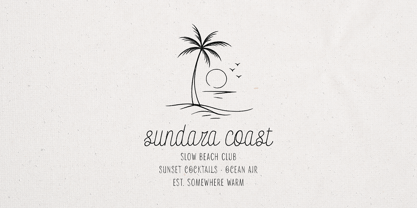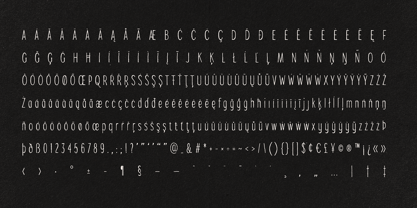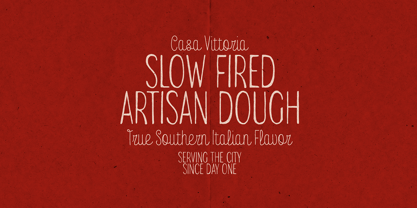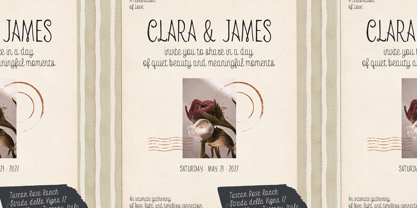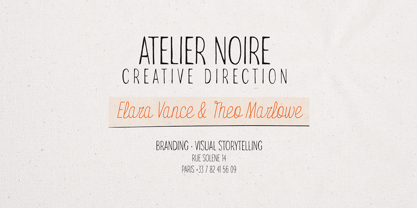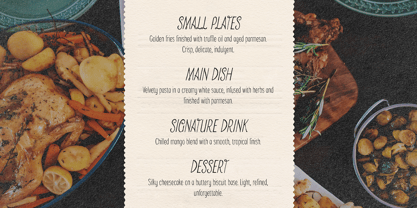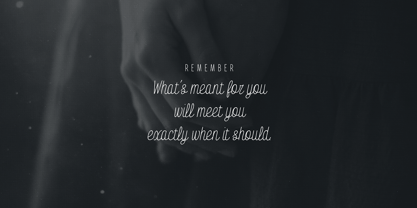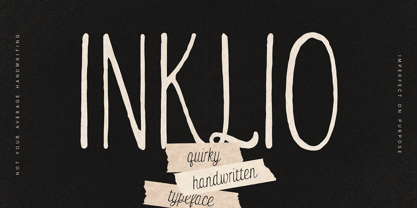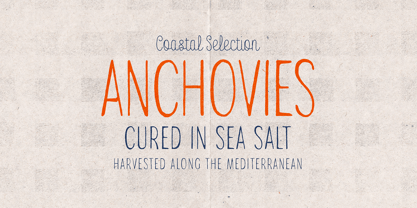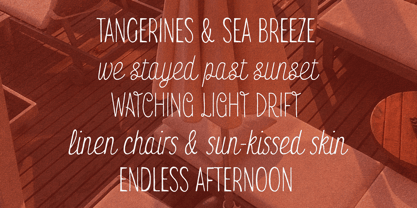
Inklio
The Inklio Font Family was designed by Vladimir Fedotov, Plamen Petrov and published by VP Creative Shop. Inklio contains 12 styles and family package options. More about this family
Meet Inklio - a playful, imperfect handwritten typeface designed to feel raw, human, and effortlessly expressive. Inspired by natural pen strokes, casual notes, and organic lettering, Inklio brings a warm, authentic personality to any project. Its slightly irregular lines and charming imperfections make it perfect for designs that need to feel real, approachable, and full of character. Whether you're crafting branding, packaging, social media, or editorial layouts, Inklo adapts beautifully thanks to its versatile 12-font family system.